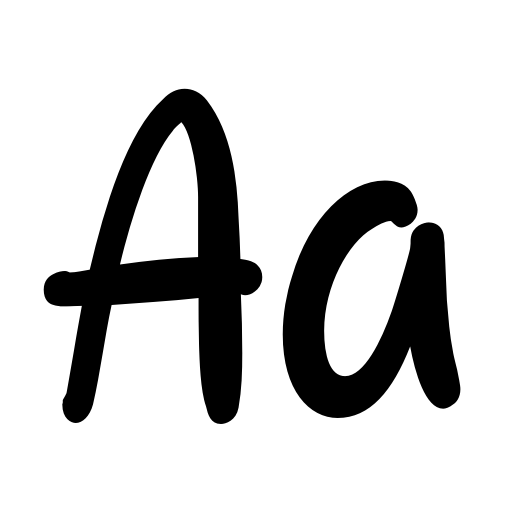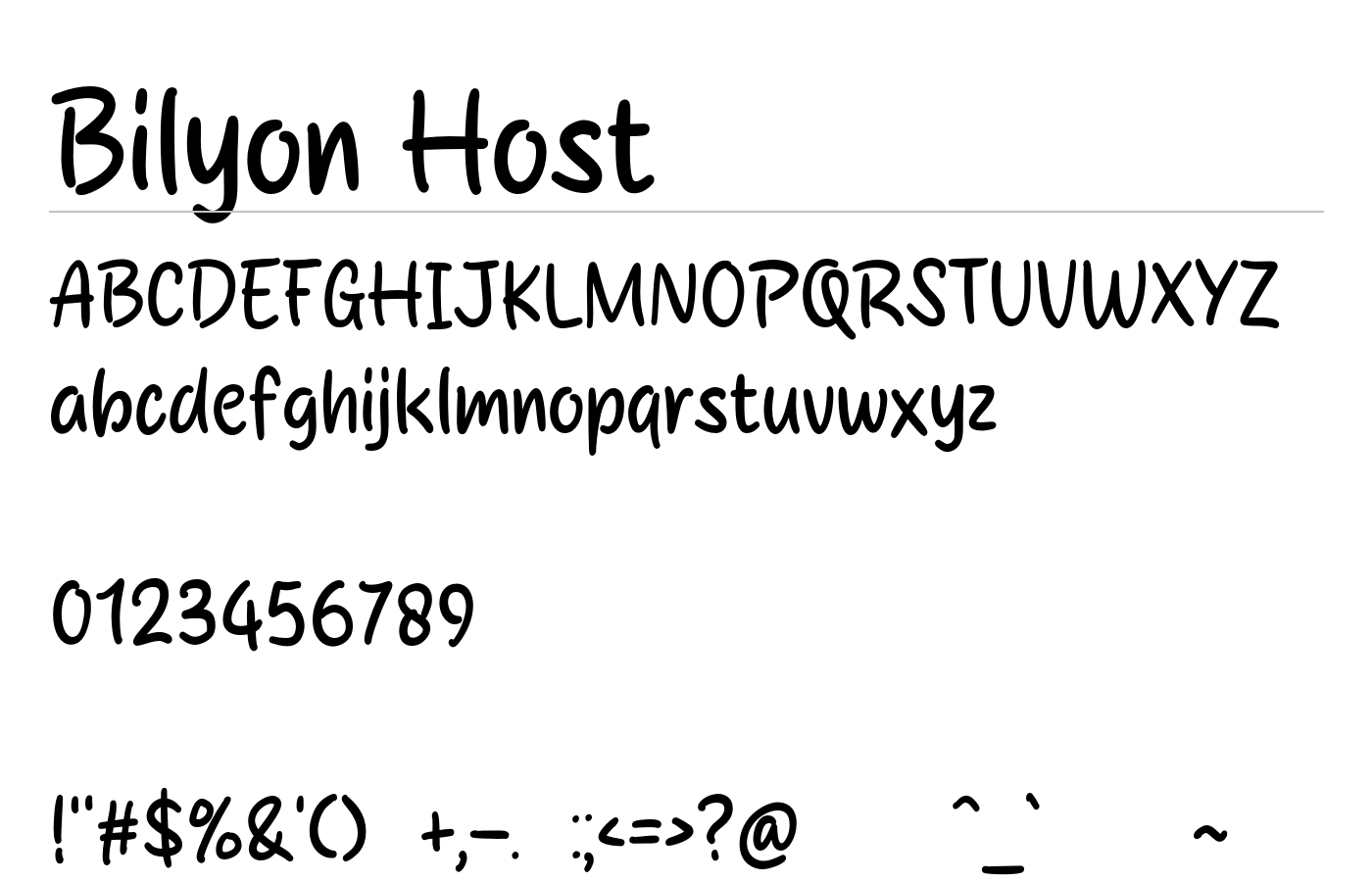
Bilyon Host is a casual, handwritten sans-serif font that offers a playful and friendly vibe with its smooth, rounded strokes and slightly irregular letterforms. Its moderate weight and open, airy spacing create an approachable and easy-to-read style, making it ideal for informal branding, children’s materials, and creative projects. This font works well in headlines and display settings where warmth and personality are desired without sacrificing clarity.
Bilyon Host Font
About Bilyon Host Font